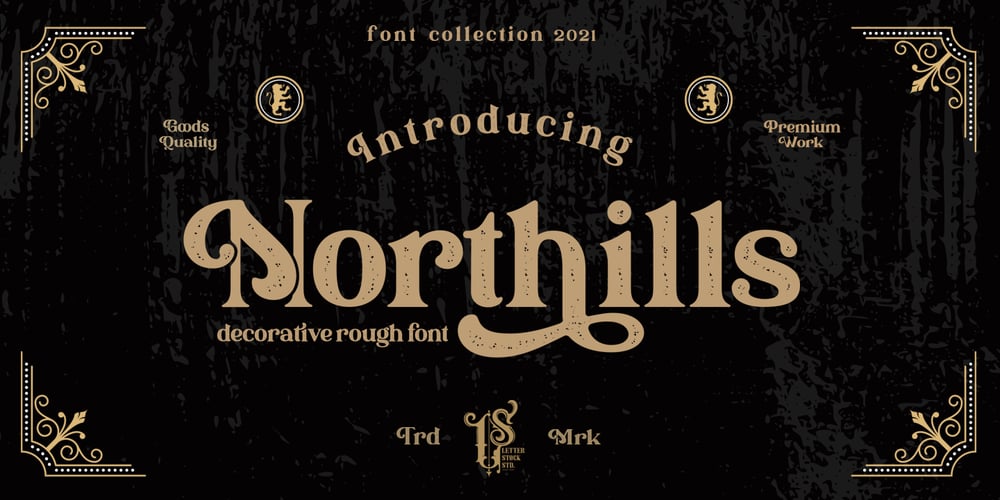
Northills Font Family was designed by Studio LetterStock and published by LetterStock. Northills contains 1 styles and family package options. Northills FontThis pair was inspired by the great lettering poster design that i saw on some coffee shop, It was crafted by hand specially to add natural handmade feeling in its brand identity than i make it clean with pentool.Opentype featuresNorthills font has 215 character setNorthills is very good looking in labels, retro logo design, product packaging, invitations, advertising andothers.Rough lettering is always have a good retro vibes and give your design authentic and good looking, it’s perfect for branding or even poster design.If you looking for rough retro font for your logo or even lettering design, this font is a great choice to make your design authentic and good lookingThis fonts works with folowing languages:Afrikaans, Albanian, Asu, Basque, Bemba, Bena, Chiga, Cornish, Danish, English, Estonian, Filipino, Finnish, French, Friulian, Galician, Gusii, Indonesian, Irish, Italian, Kabuverdianu, Kalenjin, Kinyarwanda, Low German, Luo, Luxembourgish, Luyia, Machame, Makhuwa-Meetto, Makonde, Malagasy, Malay, Manx, Morisyen, North Ndebele, Norwegian Bokmål, Norwegian Nynorsk, Nyankole, Oromo, Portuguese, Romansh, Rombo, Rundi, Rwa, Samburu, Sango, Sangu, Scottish Gaelic, Sena, Shambala, Shona, Soga, Somali, Spanish, Swahili, Swedish, Swiss German, Taita, Teso, Vunjo, ZuluThank you for using this font.LS